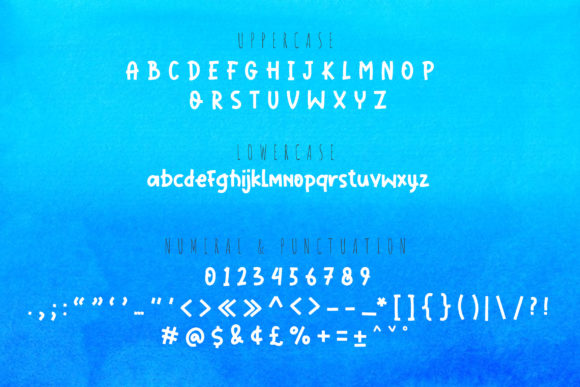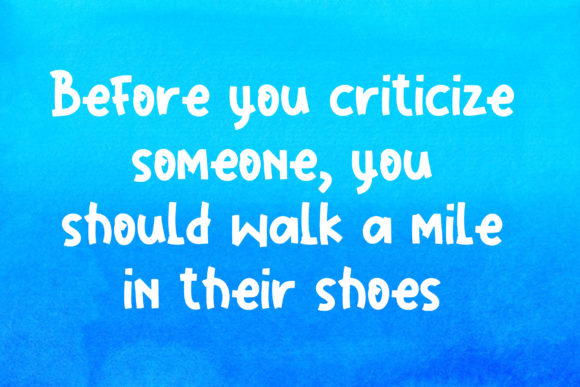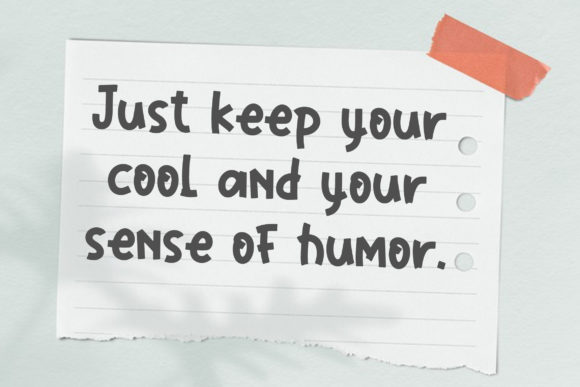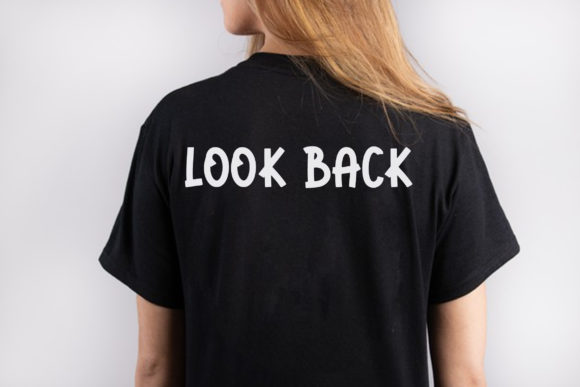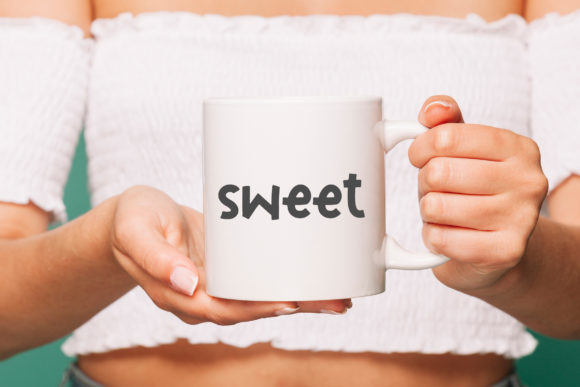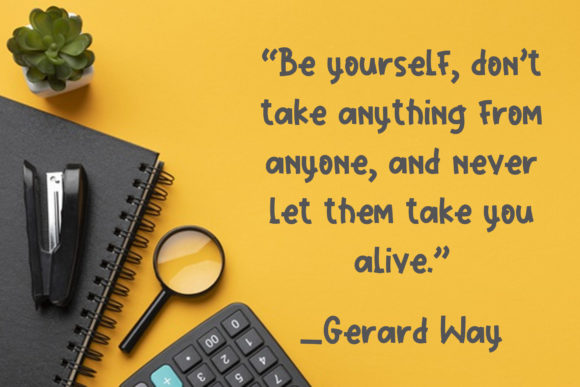
Introduction to Hurry Up Font
Have you ever found yourself stuck in a creative rut, desperately searching for that one element to bring your project to life? The perfect font can make all the difference, and that’s exactly where the Hurry Up Font comes in. This charming display font is designed to capture attention and elevate your design to new heights.
Whether you’re working on a free download project or a high-quality commercial campaign, the Hurry Up Font is an invaluable resource that’s sure to impress. Its transparent background and clean lines make it perfect for a wide range of creative projects, from social media graphics to branding materials. With its fun and friendly vibe, this font is sure to be a crowd-pleaser and leave a lasting impression.
As a designer, you know that the right font can be a game-changer. That’s why we’re excited to share the Hurry Up Font with you, and we’re confident that it will become a trusted design resource in your toolkit.
Key Features of Hurry Up Font
- High-quality, bold sans-serif font ideal for creative projects requiring a sense of urgency.
- Features a transparent background, allowing for easy integration with custom graphics and backgrounds.
- Designed to be highly legible, even at small font sizes, making it perfect for titles, headings, and other prominent text elements.
Honest Review: Hurry Up Font
As a designer, I’ve had the chance to work with various fonts, but the Hurry Up Font caught my attention for its unique features and potential applications. Here’s my honest take on this design resource.
- High-quality design: The font is well-crafted, with clean lines and a modern feel.
- Transparent background: This feature makes it easy to use the font on any background, ensuring seamless integration.
- Limited font styles: While the font is well-crafted, it’s available in only a few styles, which might limit its versatility.
Overall, the Hurry Up Font is a solid addition to any designer’s toolkit, especially for creative projects that require a modern and clean aesthetic. While it has its limitations, its high-quality design and free download make it a worthwhile resource for designers on a budget.
Hurry Up Font
Hurry Up Font is a high-quality design resource ideal for creative projects. This font offers a free download option, making it accessible to designers and non-designers alike.
For optimal results, use Hurry Up Font on a transparent background to create a clean and modern design. Experiment with different font sizes and styles to add visual interest to your project.
Hurry Up Font is ideal for creative projects such as social media graphics, blog posts, and marketing materials. Its high-quality design and transparent background make it a versatile resource for designers and non-designers alike.